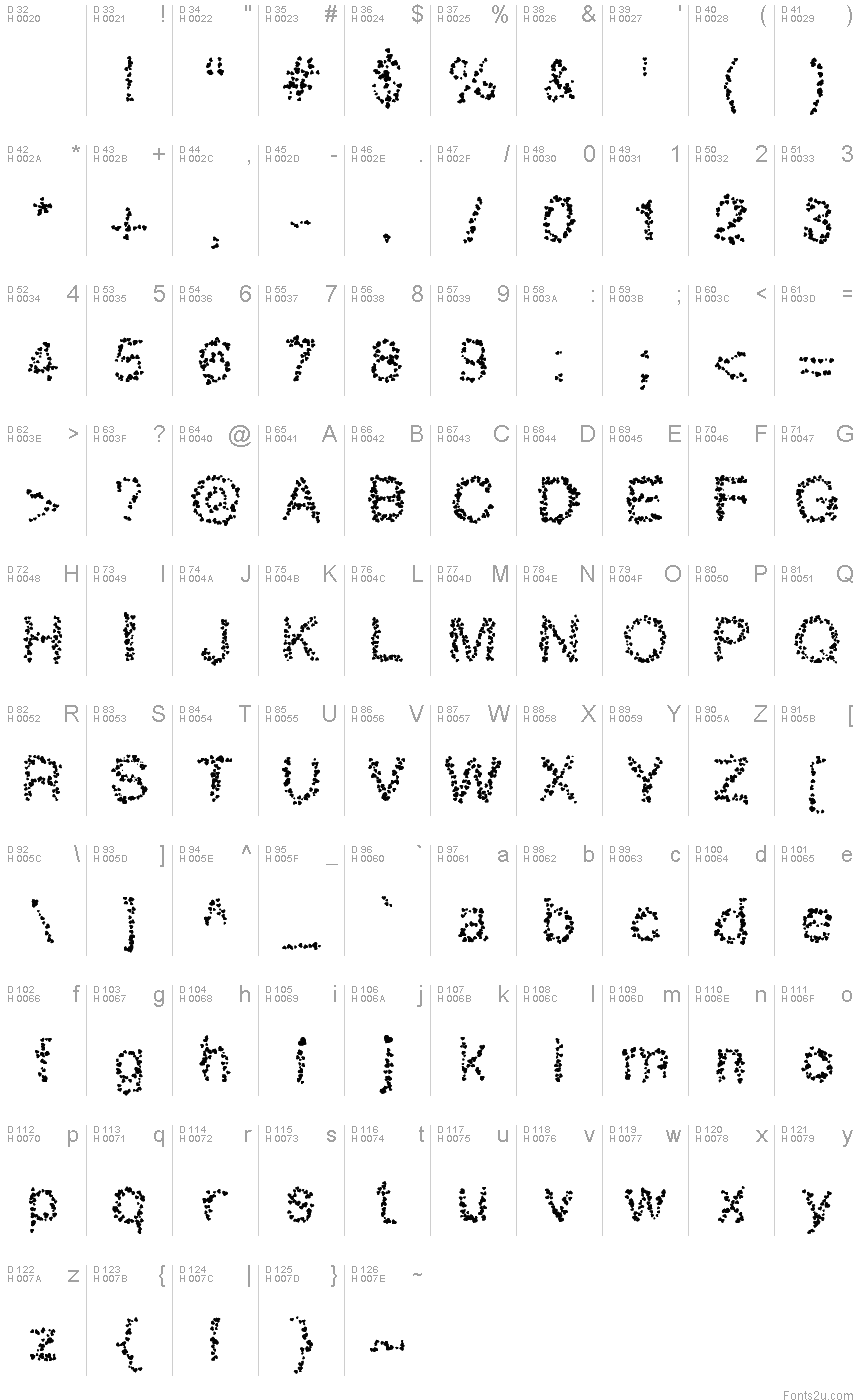
Sophiahearts
THE TYPEFACE
Sophia hearts was named after and inspired by Sophia, one of my best friends who I love. Sophia is a little crazy and completely lovable, just like this typeface.